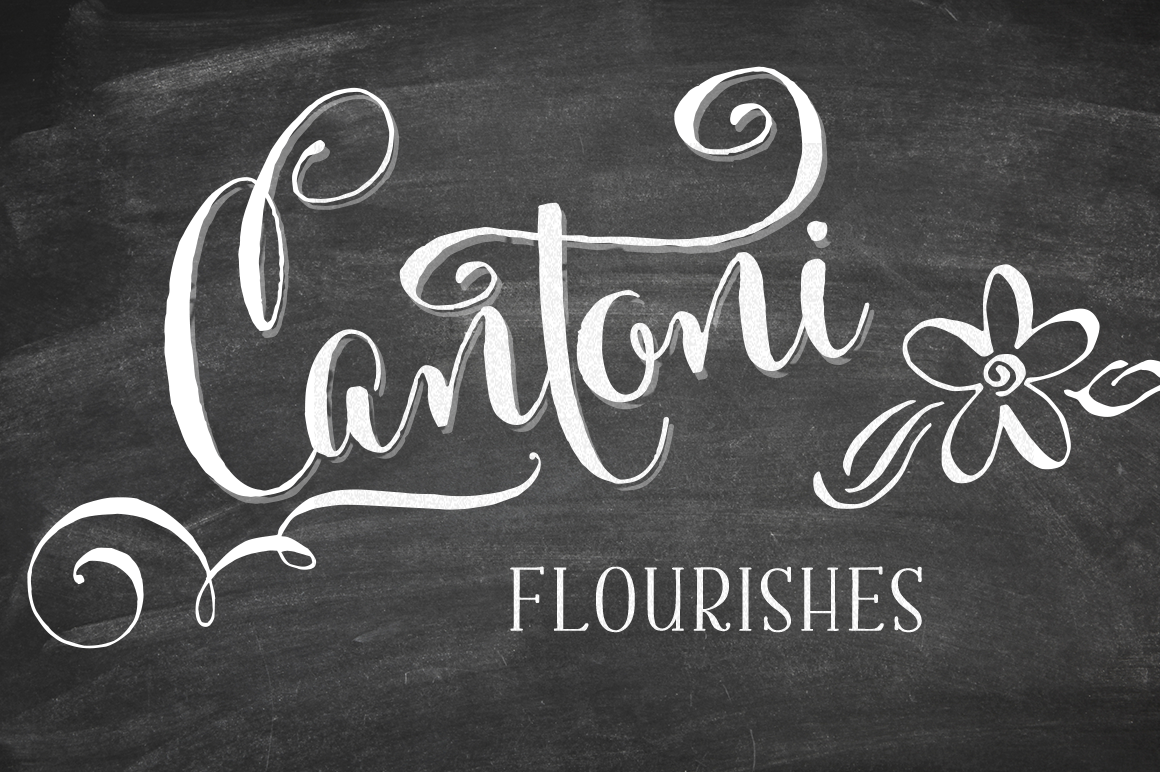
Cantoni Font Flourishes
The Cantoni Flourish font contains 84 flourishes that can be used to create borders, unique ornaments and add whimsy to your designs. Click here to see the keyboard map showing the entire set: http://letteringartstudio.com/wp-content/uploads/2014/05/Cantoni-Flourishes-Map.pdf
Named after my large Italian family, Cantoni is a font family with a unique variety of letters based on my own fluid upright style of brush lettering, that reminds me of every family I know. There are creative and conservative siblings, crazy in a good way cousins, affable aunts and corny joke telling uncles who somehow come together and form one cohesive unit. The party starts. The fun begins. And soon they're all laughing and dancing up and down the baseline.